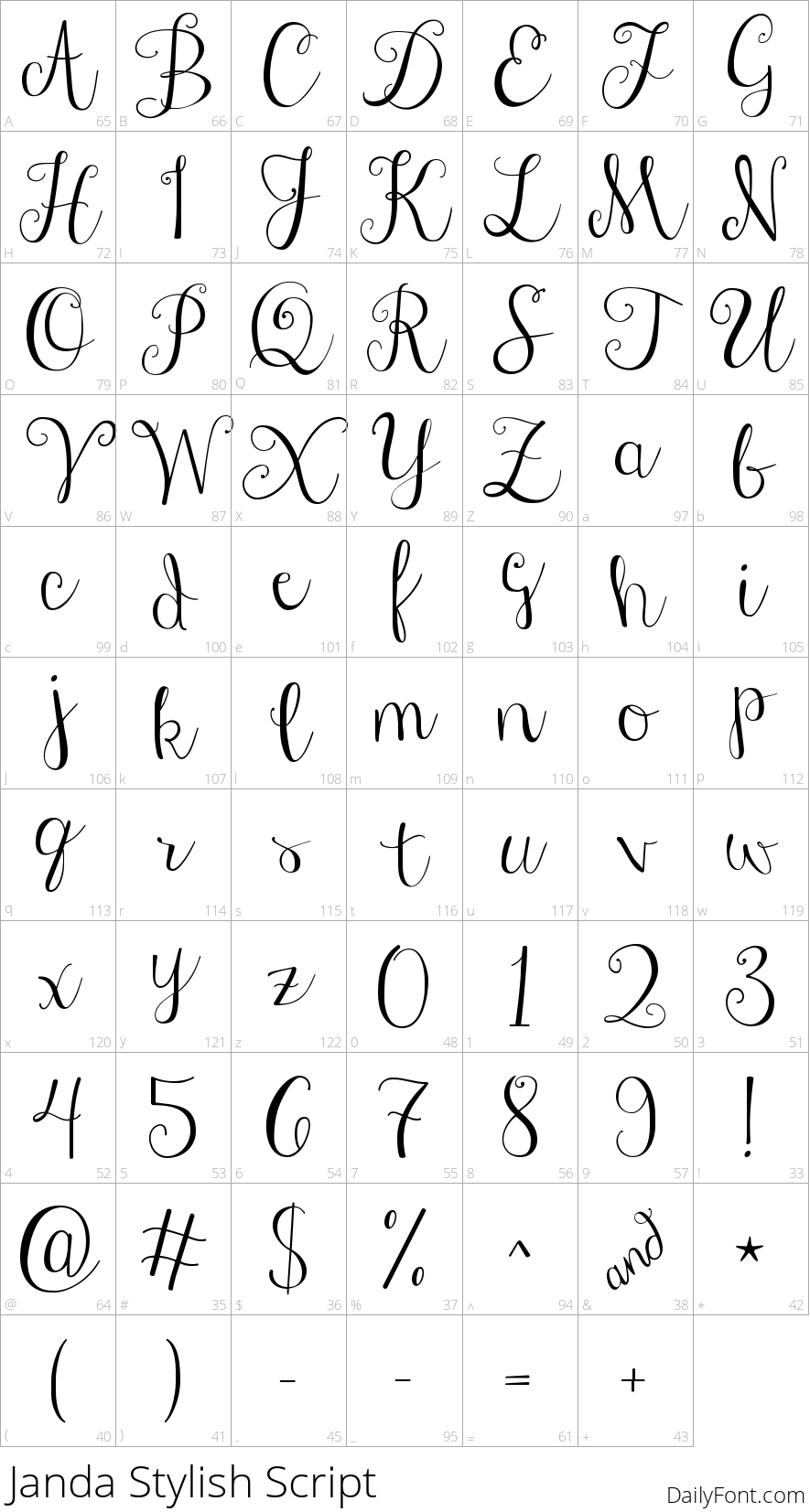
Janda Stylish Script by Kimberly Geswein
Flowing connecting cursive with elegant looping capital swashes
Elegant handwritten font with cursive flair and modern twist, ideal for elegant invitations and romantic typography designs.